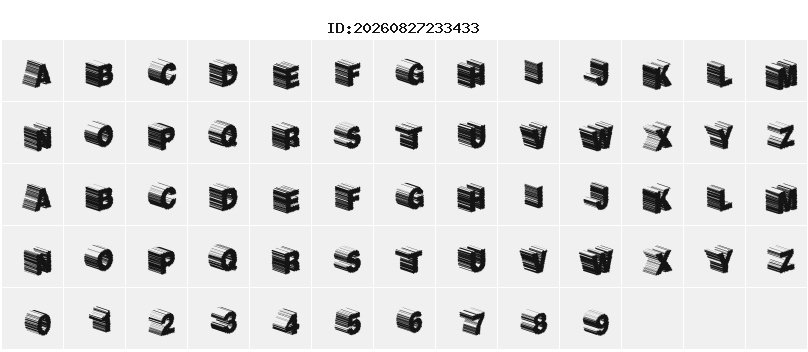
TwerkFifty Preview
• Font Name: TwerkFifty
• Designer: Xerographer Fonts Max Infeld
• Manufacturer: Xerographer Fonts
• Description: Made at Xerographer Studios in Chico,CA a custom template by max infeld